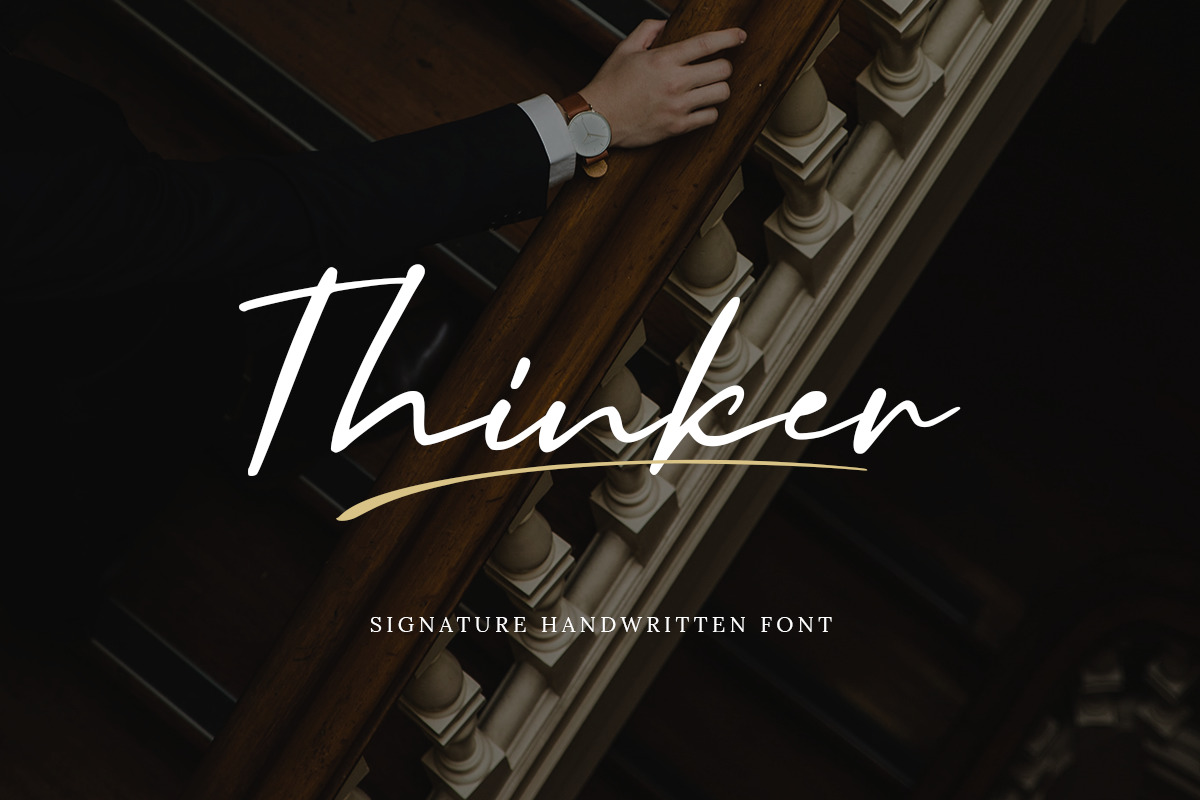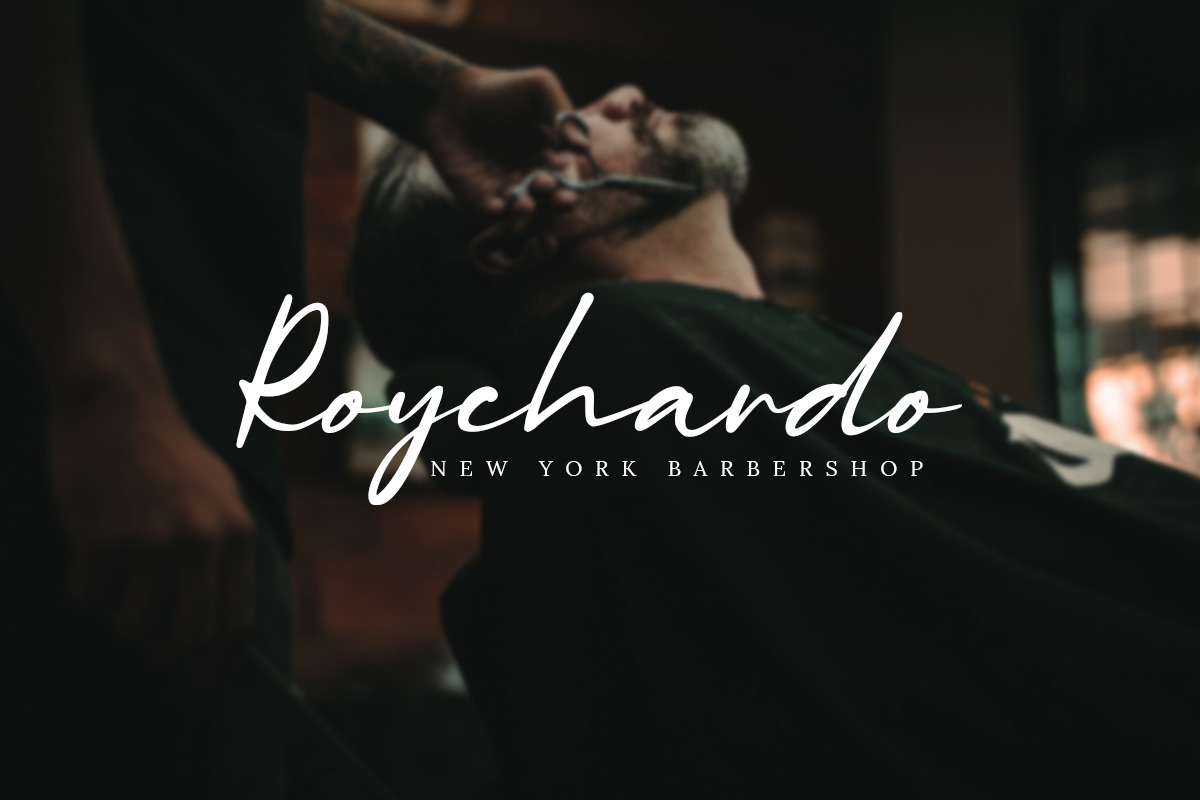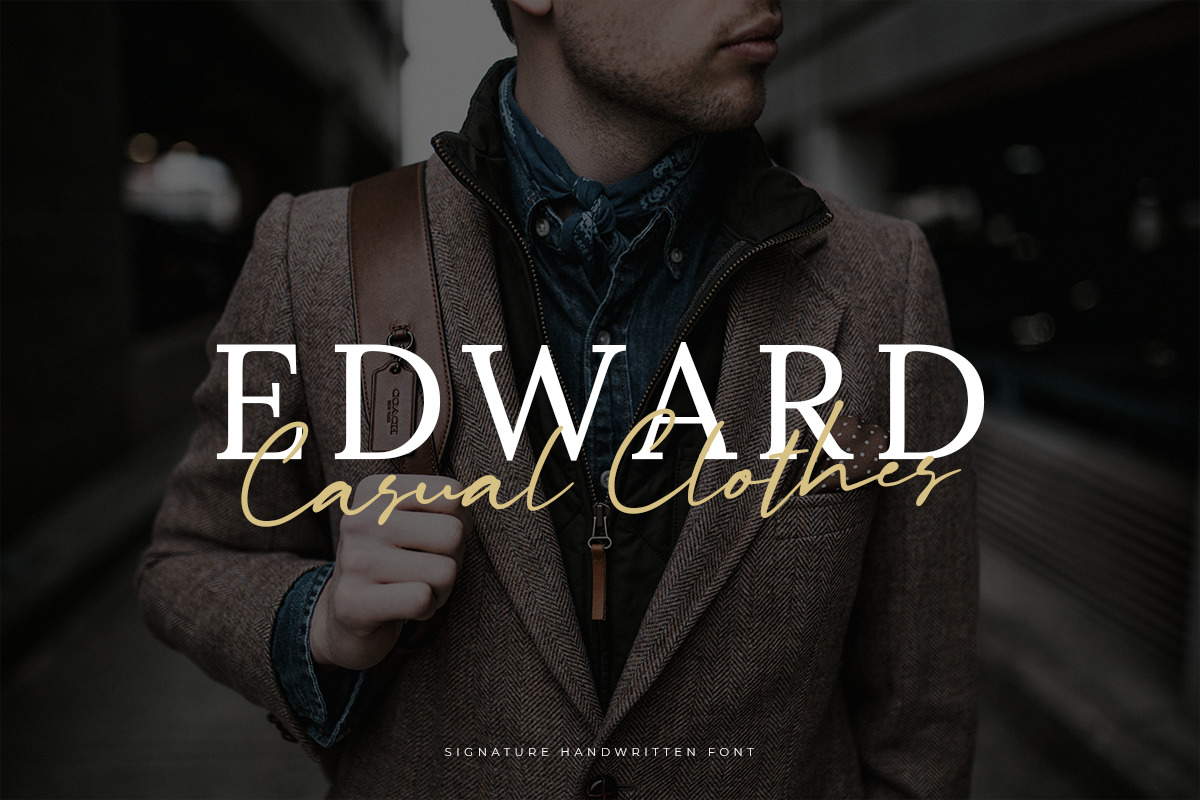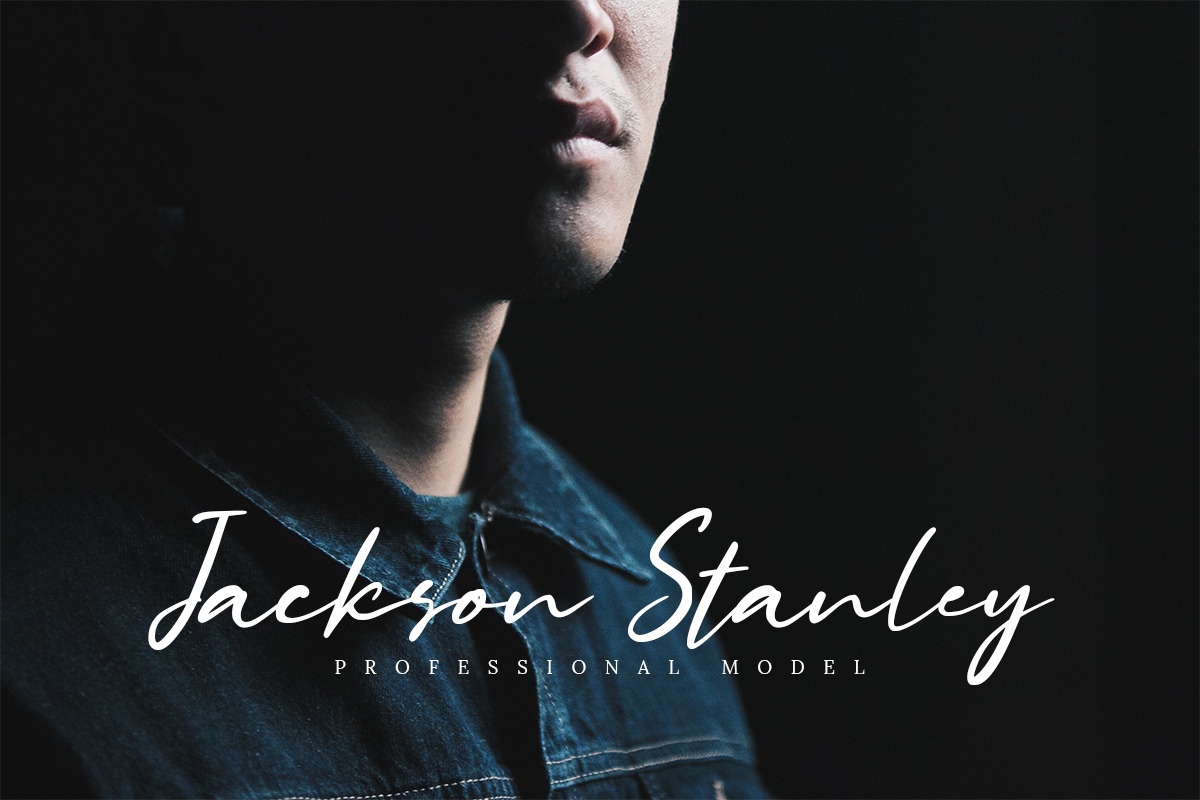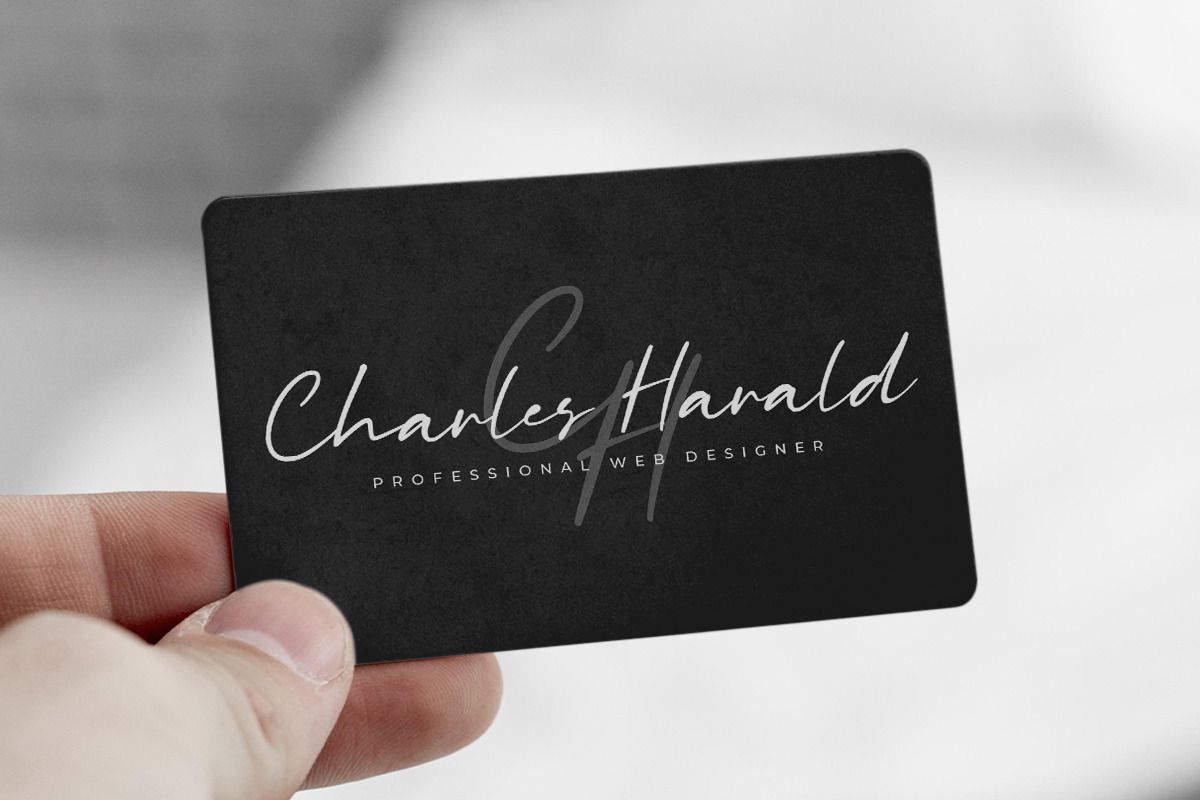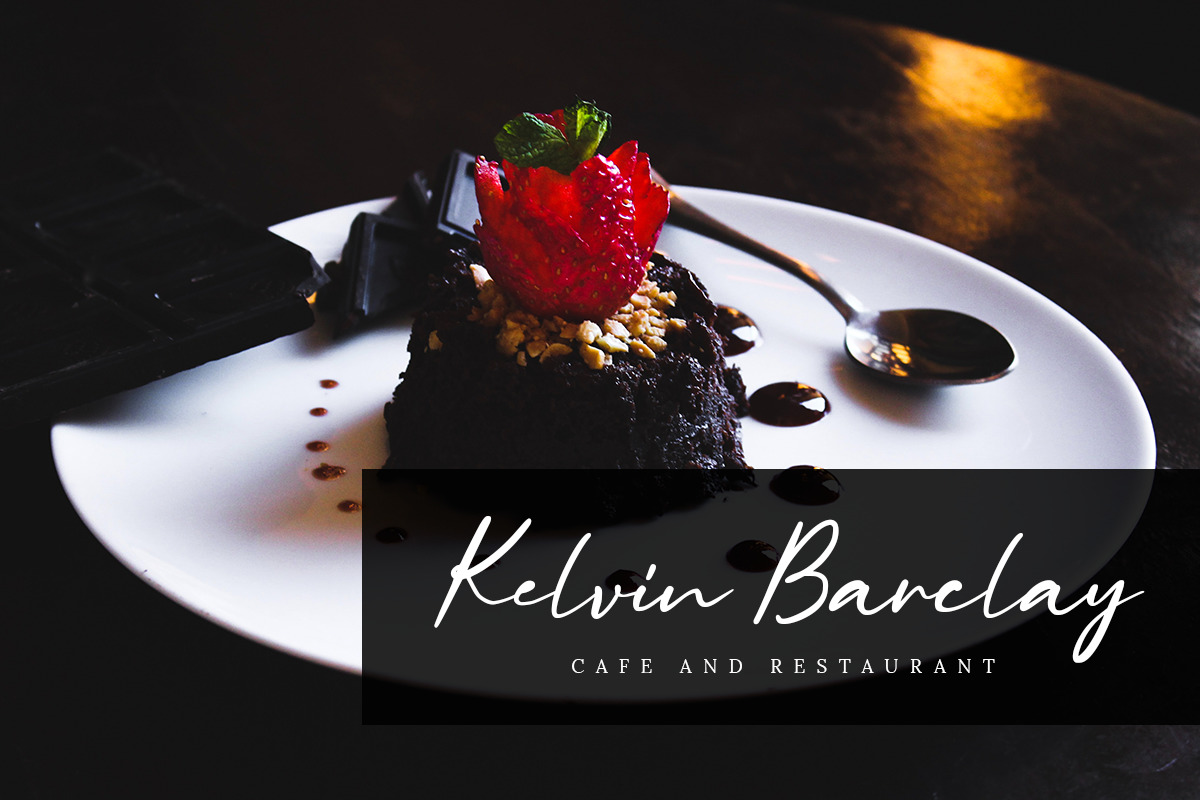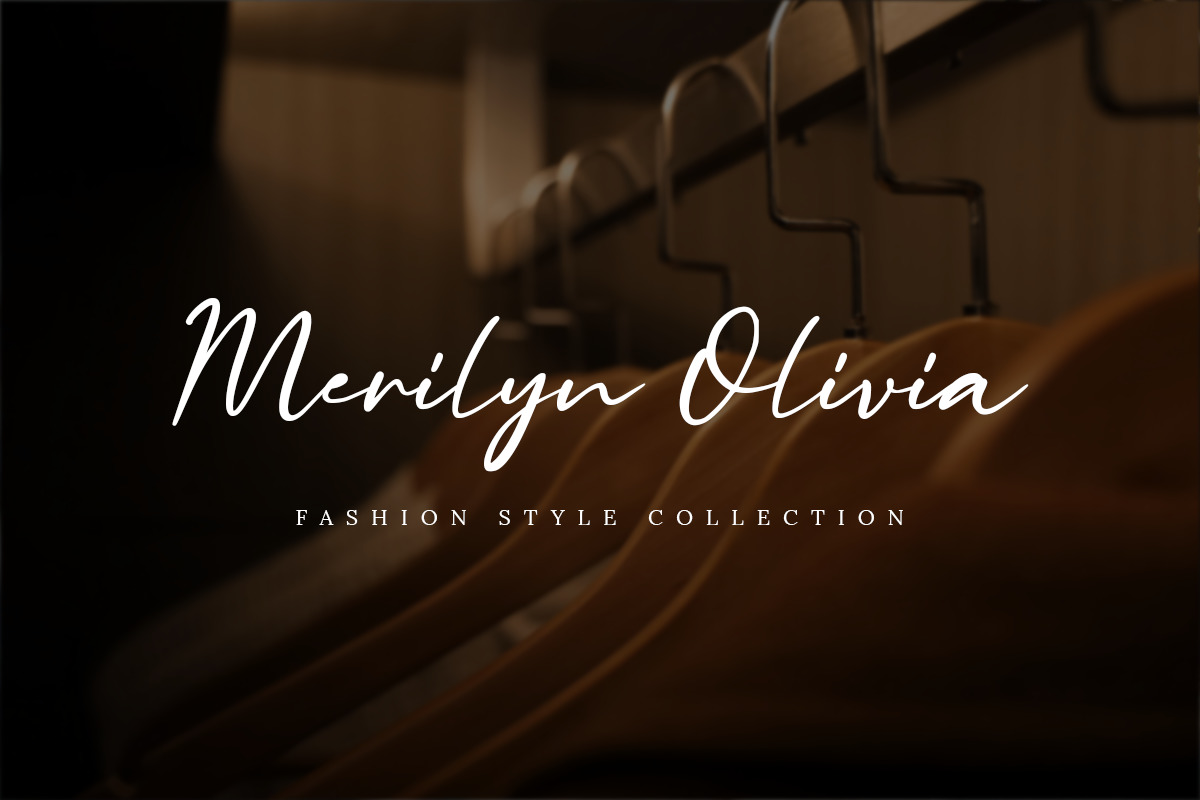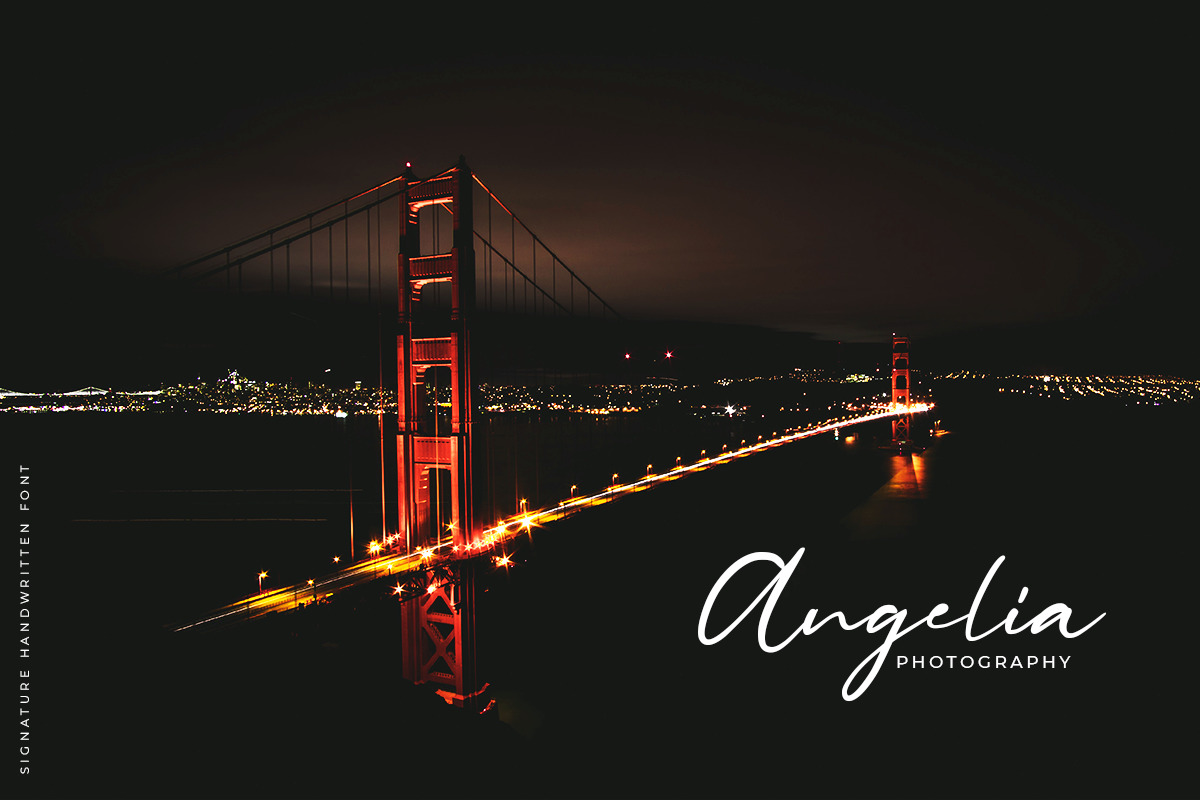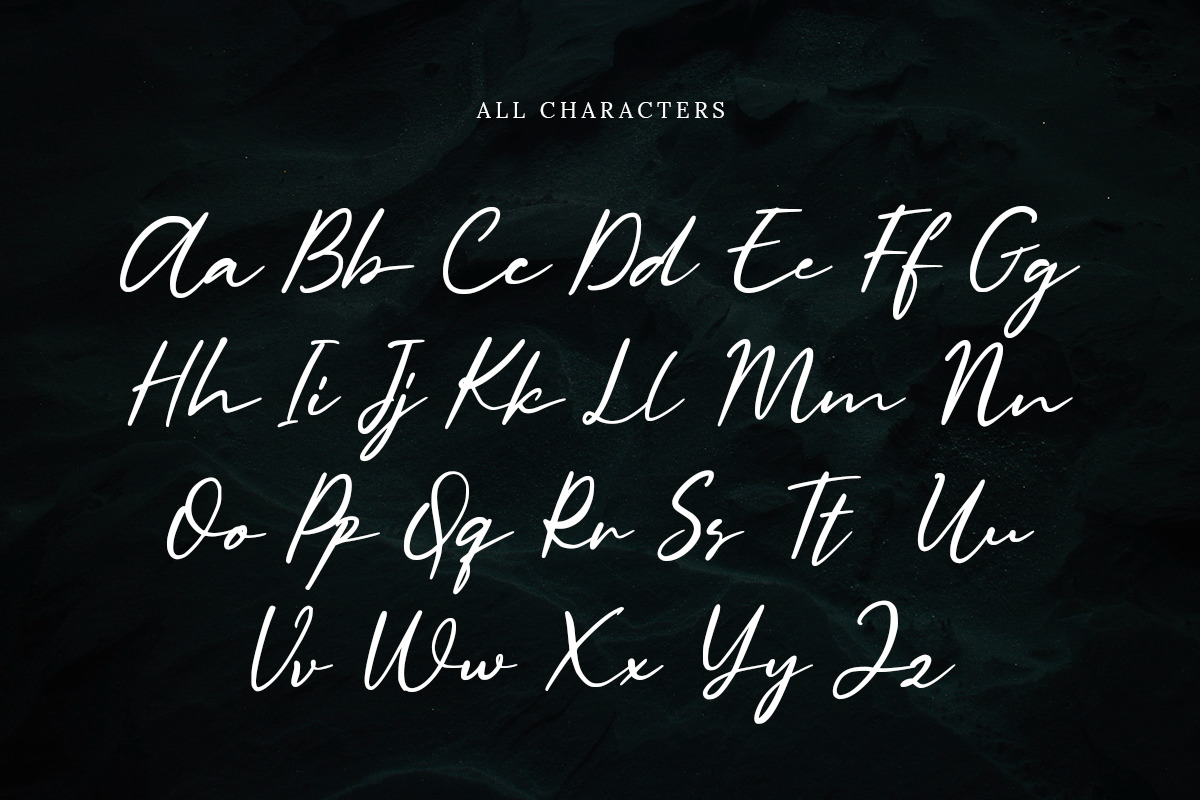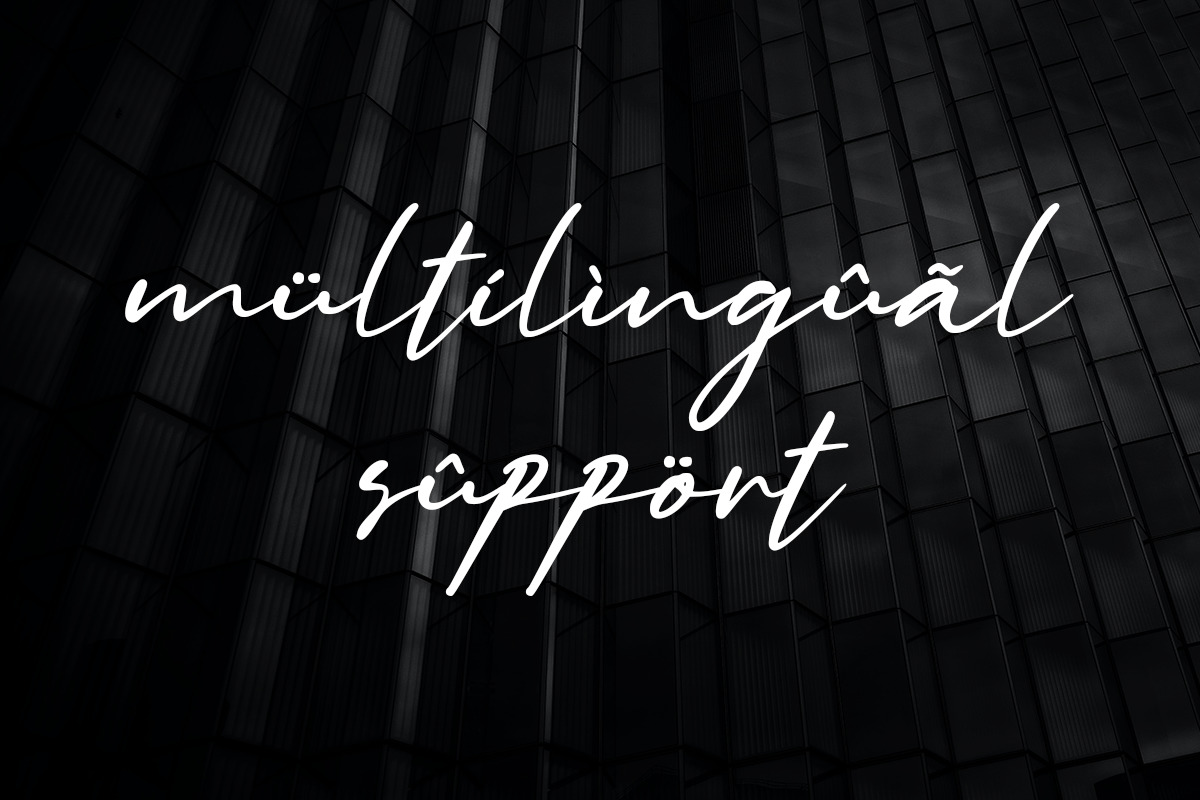
Thinker – Signature Handwritten Font
Thinker is A Signature handwritten font with nice and modern style and so beautiful.
This font specially crafted for your project design or professional logo, modern for any designs such as product, merchandise, and so many more with easy to use but unique results are so professional.
- All Characters (from A to Z)